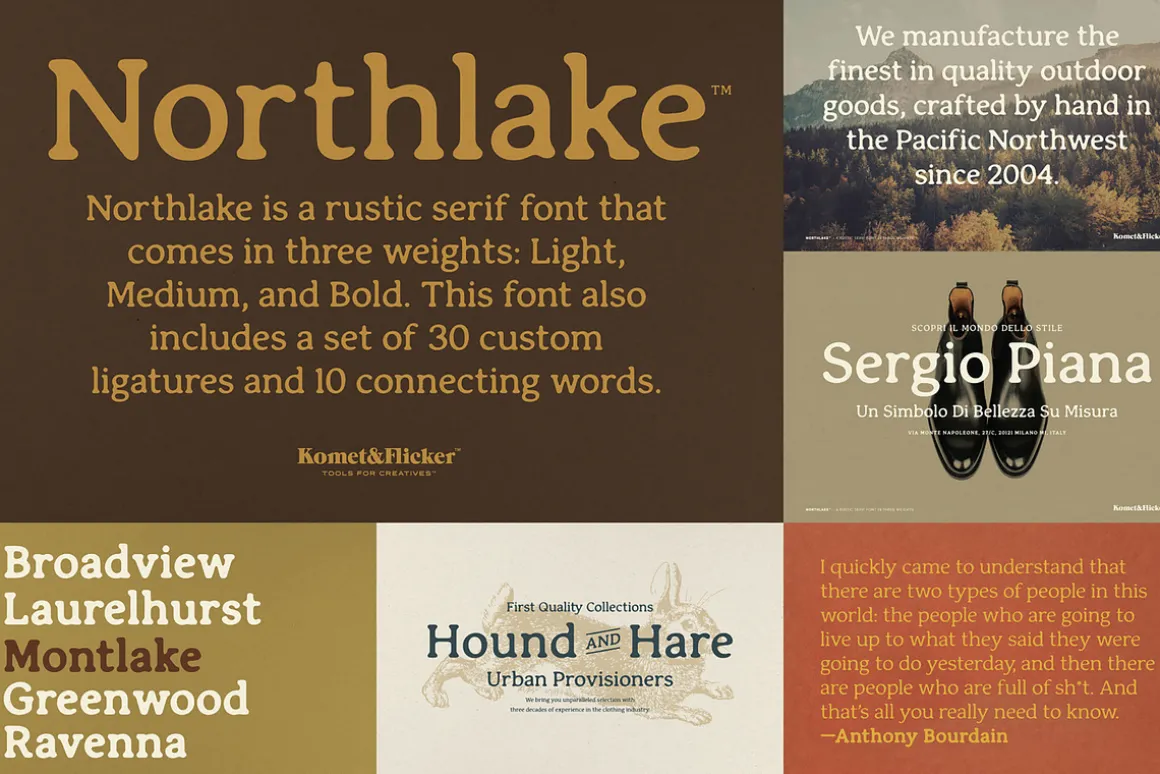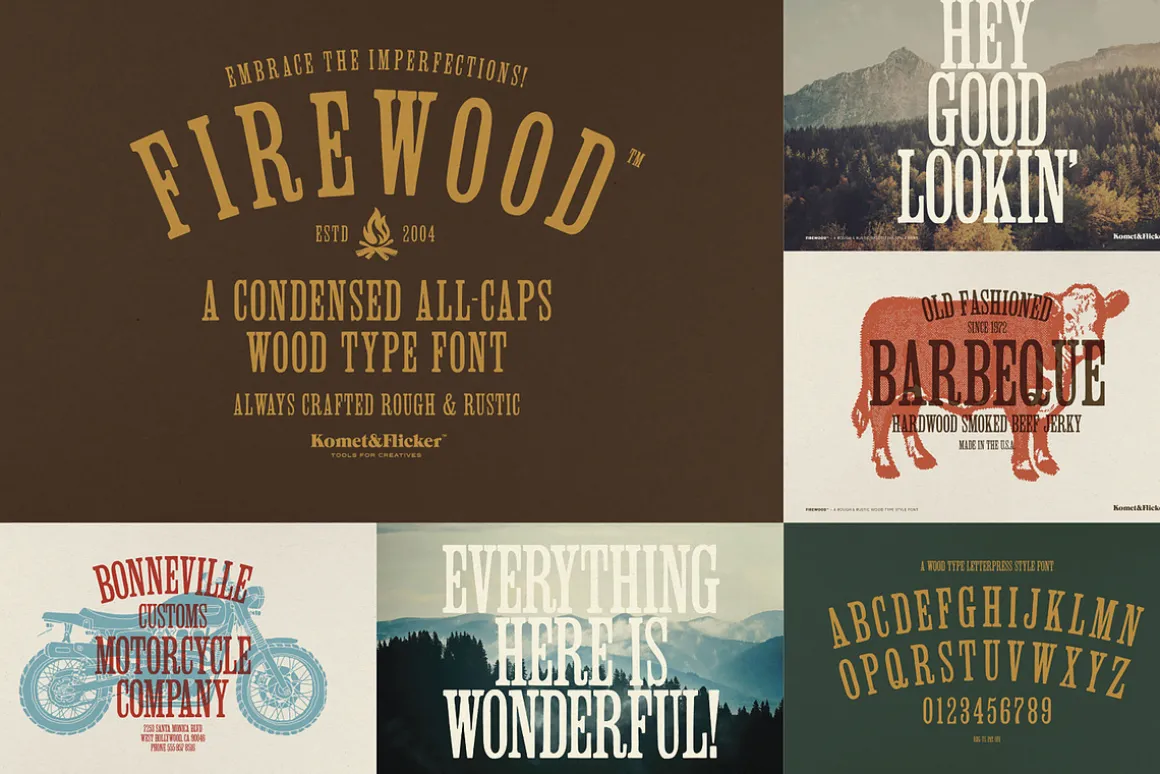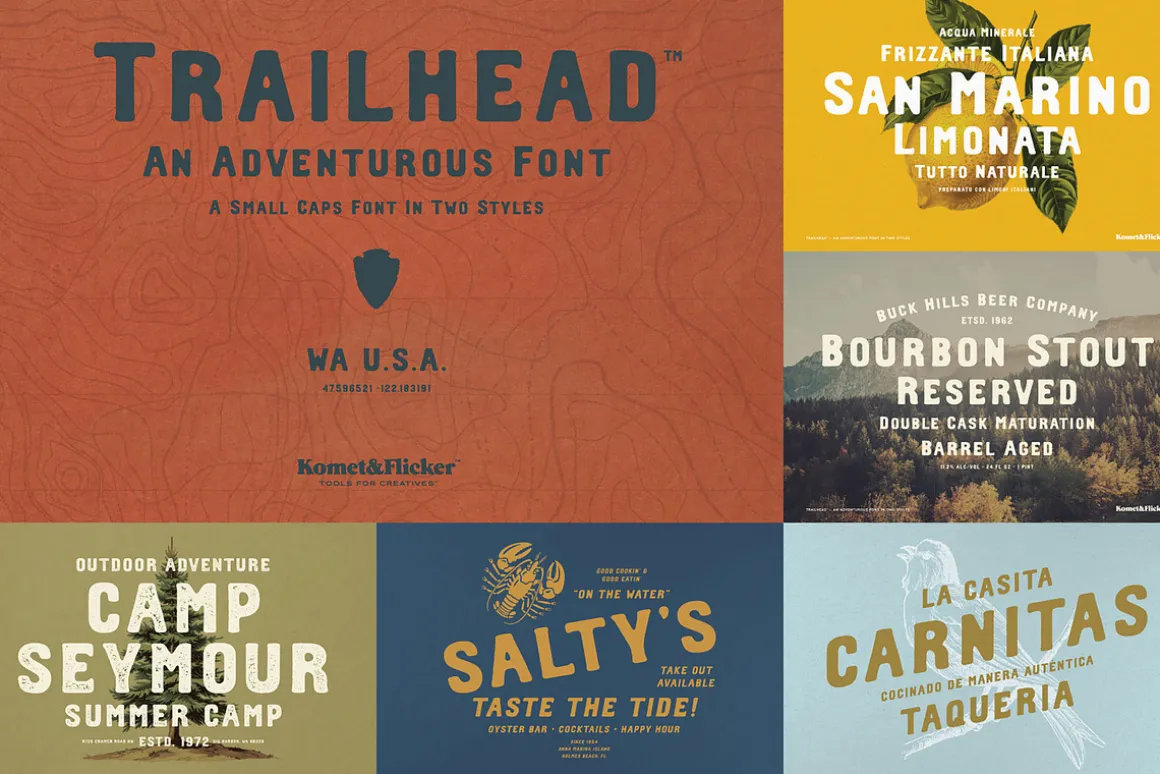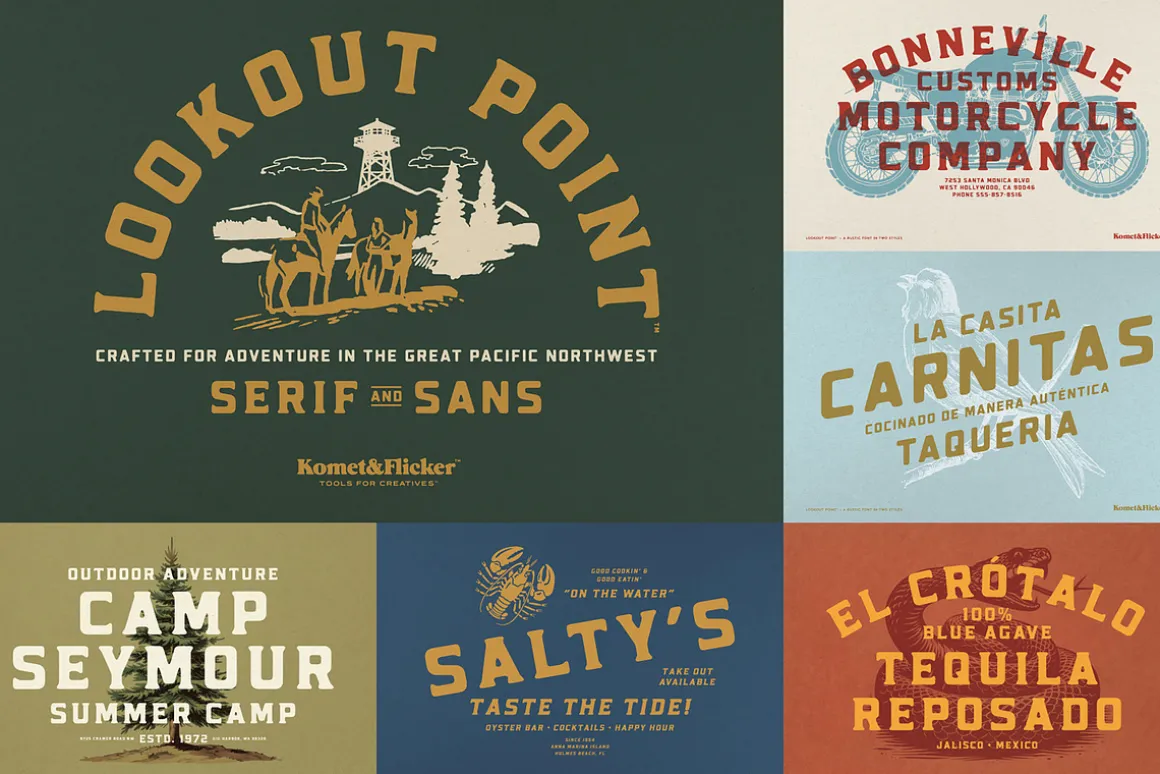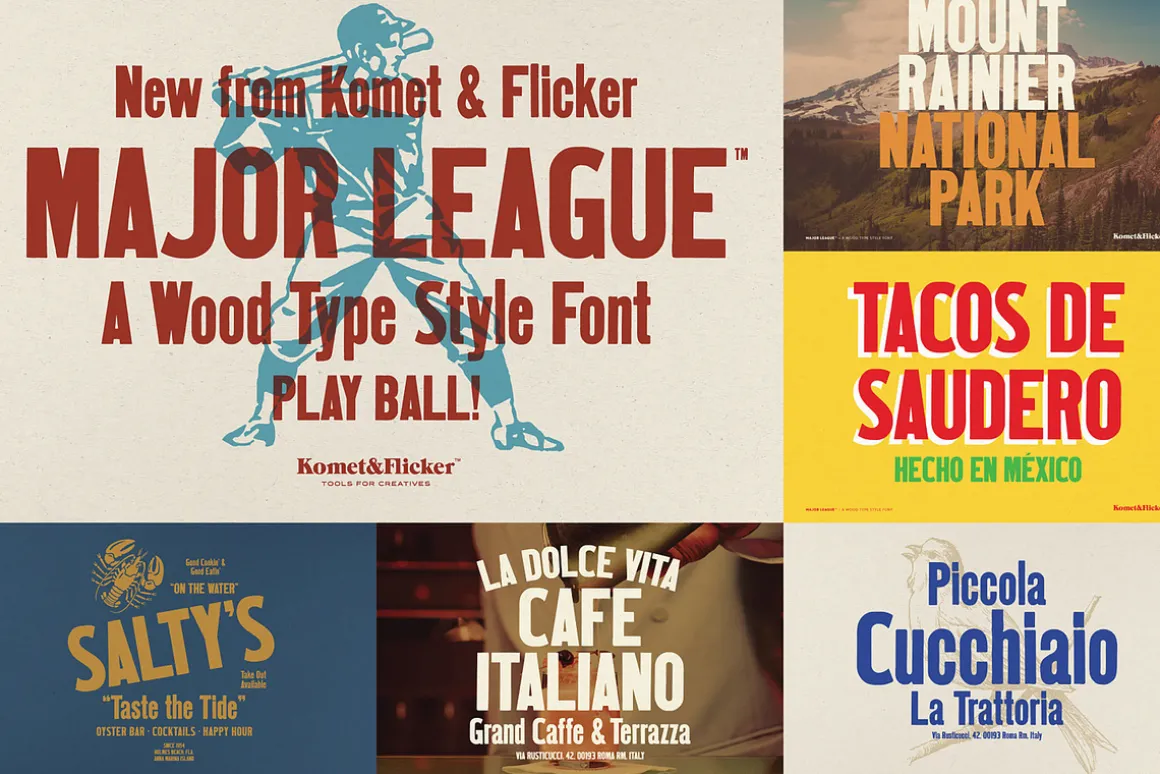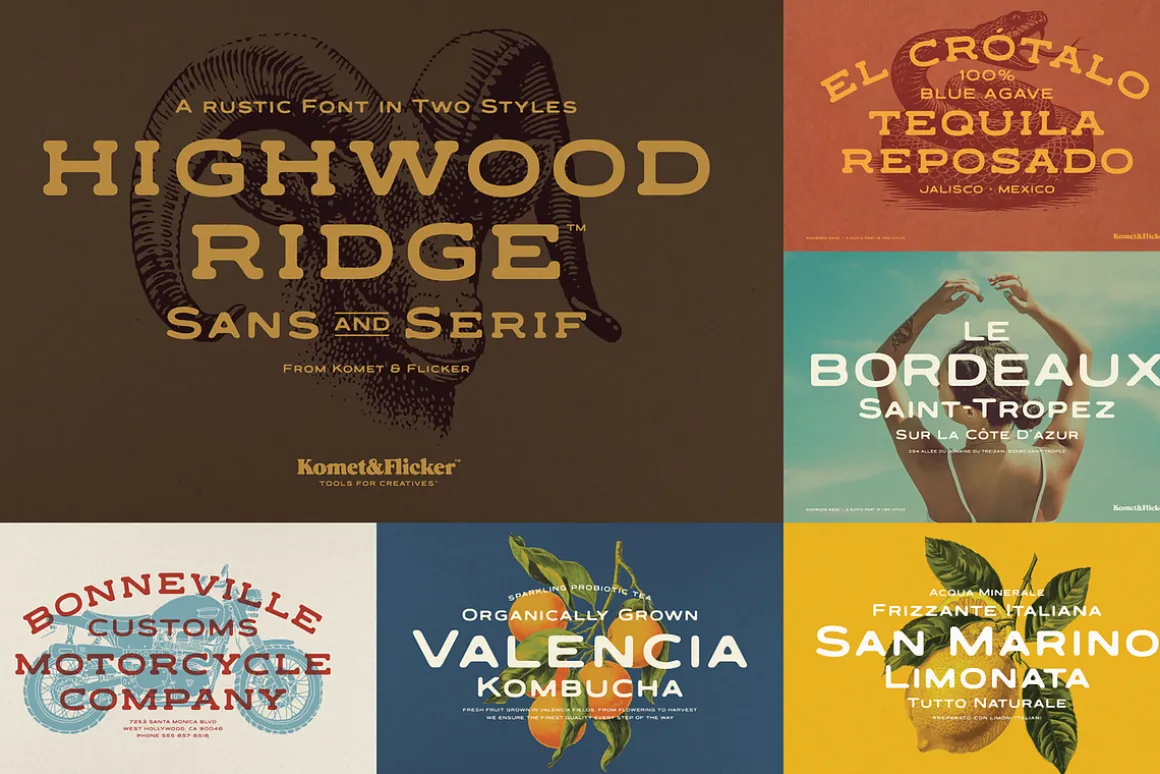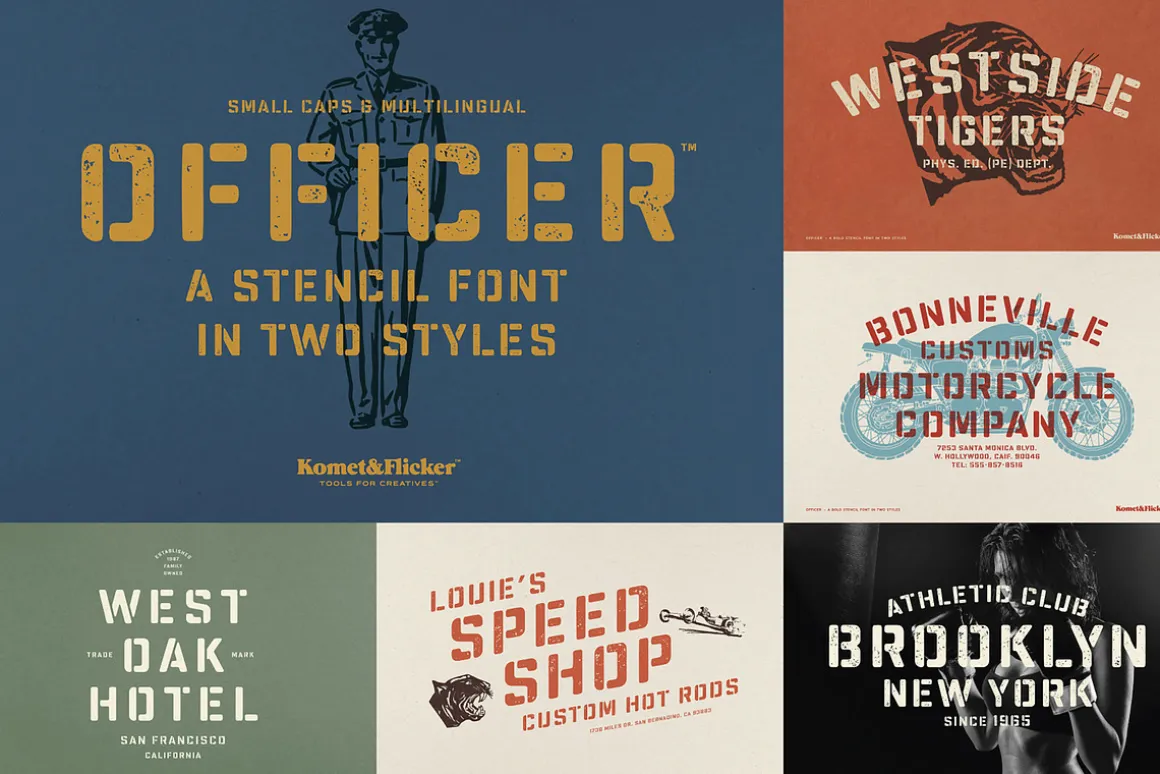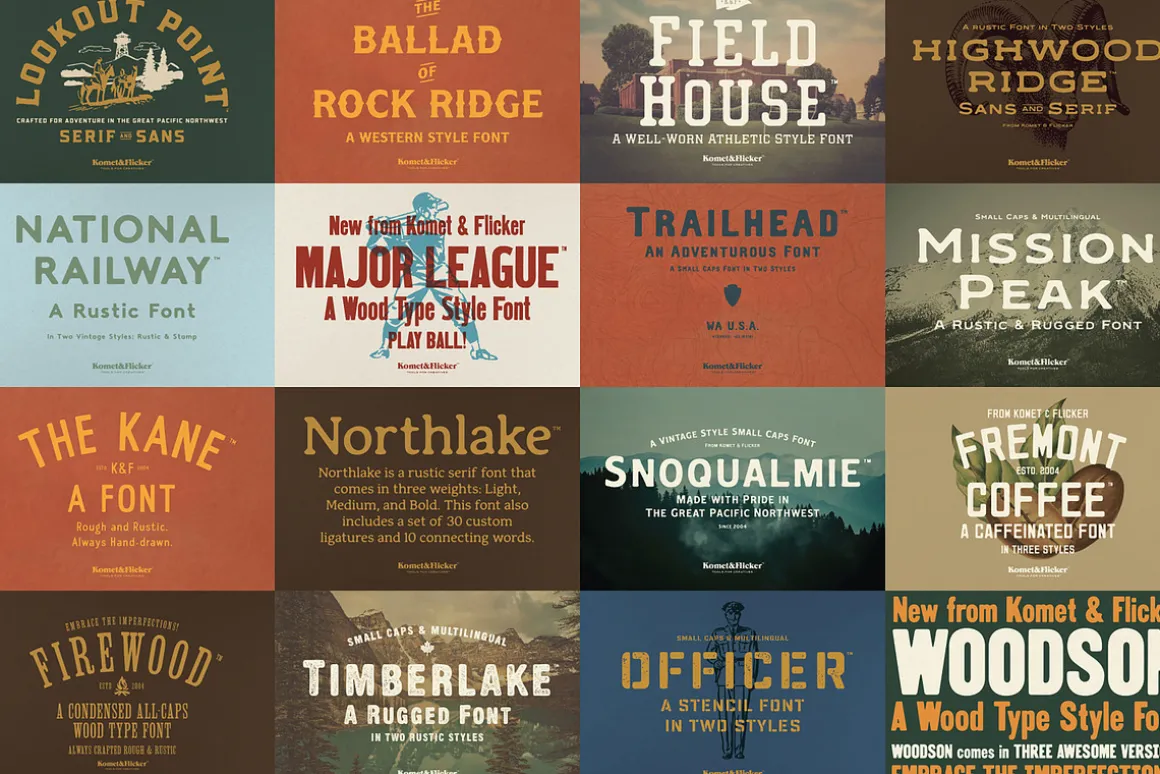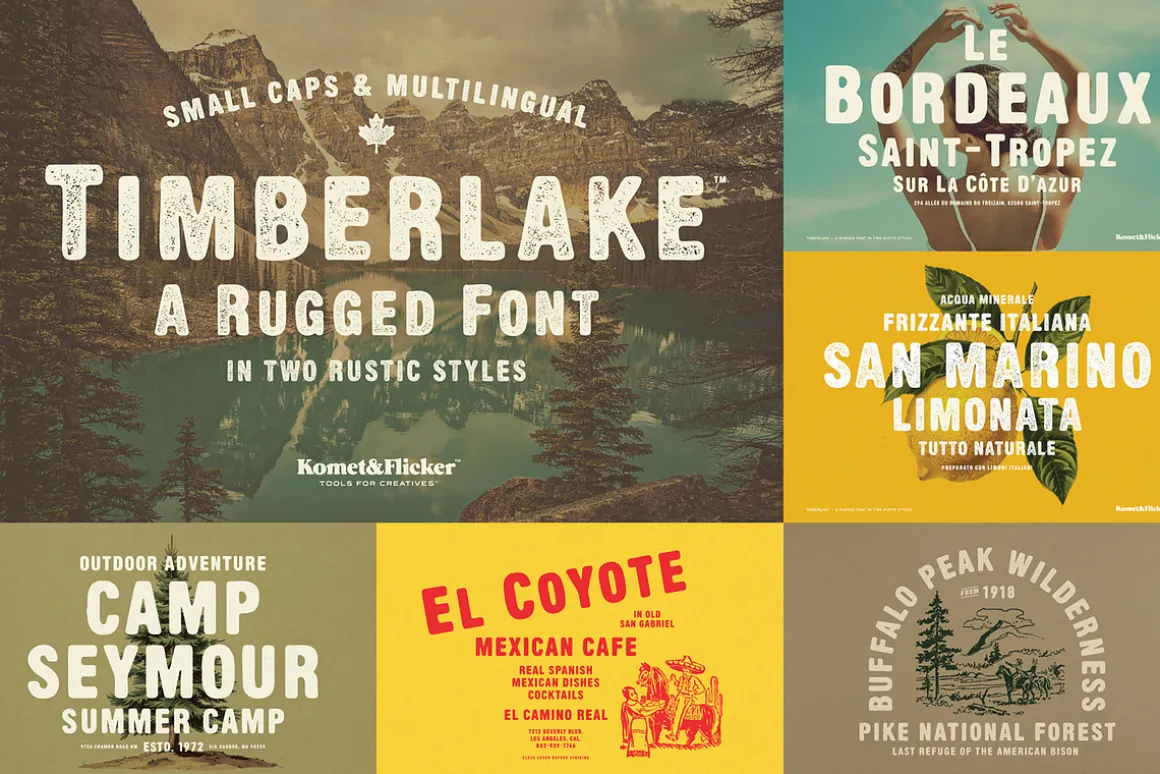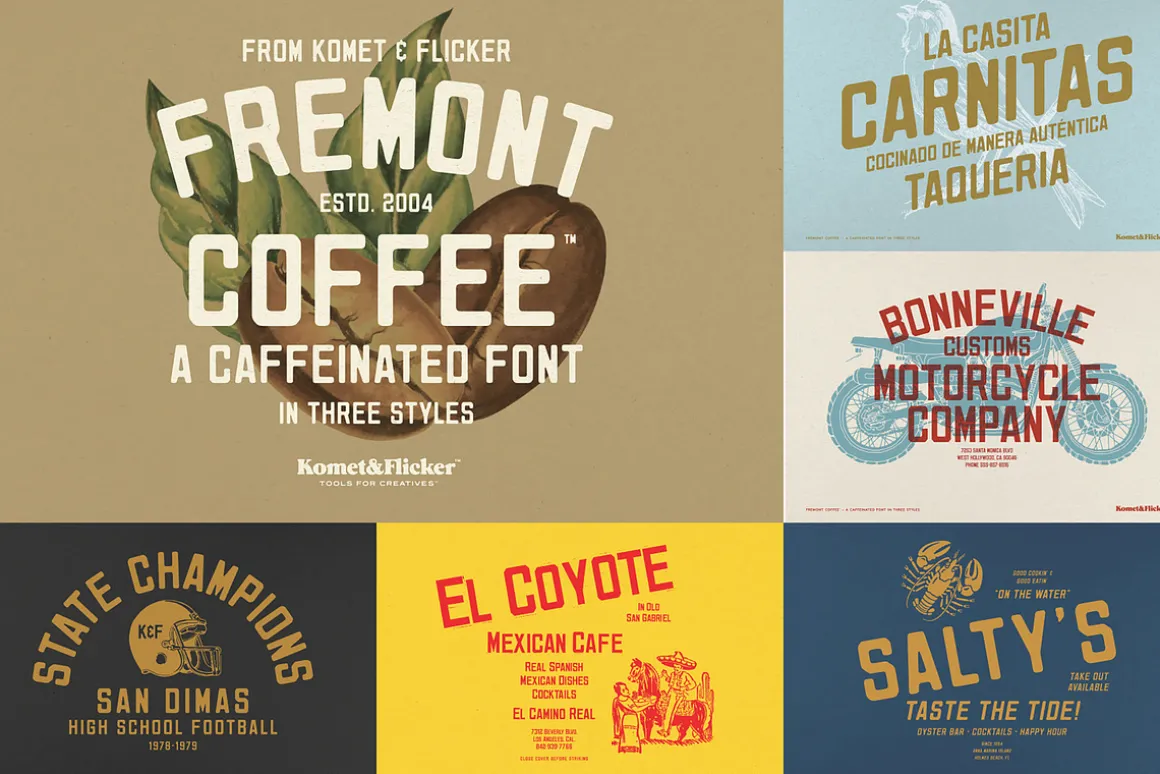
Bring warmth, character, and vintage charm to your designs with The Complete Rustic Fonts Collection – a curated bundle featuring 16 unique typefaces for a total of 30 individual fonts. Whether you’re designing logos, signage, packaging, or social media graphics, this collection adds that perfectly weathered, well-worn rustic feel that makes your work stand out.
Each typeface in this bundle carries a distinct vintage feel, ranging from bold and rugged to elegantly distressed, ideal for projects with a handcrafted or heritage aesthetic. To add even more character, all fonts (except Fremont Coffee and Major League) come with a set of custom connecting words like and, the, from, and to, making your compositions flow beautifully and feel truly bespoke.
Perfect for designers and creatives looking to infuse their work with a touch of the timeless, The Complete Rustic Fonts Collection is your go-to toolkit for authentic vintage typography.
THIS COLLECTION INCLUDES 30 INDIVIDUAL FONT STYLES
- Field House Varsity
- Field House Jr. Varsity
- Firewood Condensed
- Fremont Coffee Clean
- Fremont Coffee Soft
- Fremont Coffee Rough
- Highwood Ridge Serif
- Highwood Ridge Sans
- Lookout Point Serif
- Lookout Point Sans
- Major League
- Mission Peak
- National Railway Rustic
- National Railway Stamp
- Northlake Light
- Northlake Medium
- Northlake Bold
- Officer Stencil Bold
- Officer Stencil Stamp Bold
- Snoqualmie
- The Ballad of Rock Ridge Clean
- The Ballad of Rock Ridge Rustic
- The Ballad of Rock Ridge Stamp
- The Kane
- Timberlake
- Trailhead Rustic
- Trailhead Stamp
- Woodson Crisp
- Woodson Soft
- Woodson Stamp